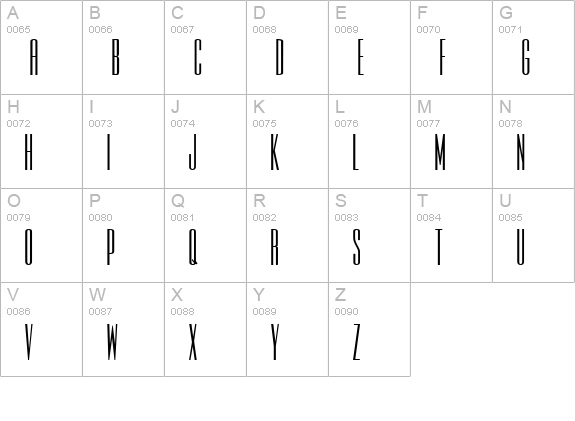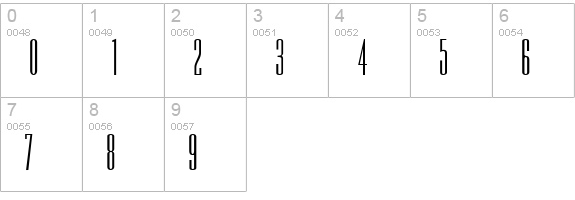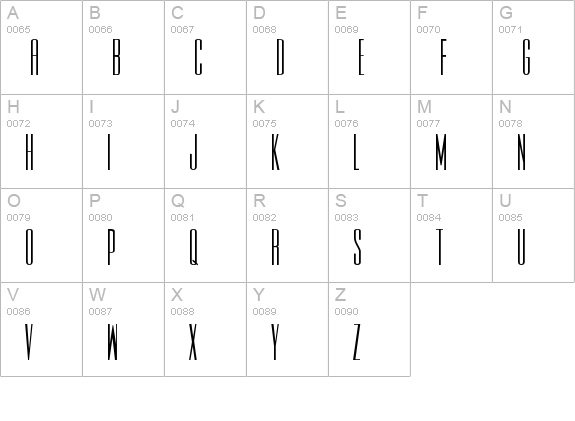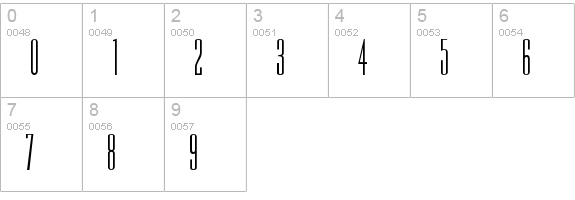
Slim Jim Bold Font Details
Slim Jim Bold is a strong, high-contrast variant in the Slim typeface family \xE2\x80\x94 well suited to headlines, attention-grabbing titles, and strong calls-to-action.
Introducing Slim Jim Bold, a font that exudes confidence and makes a bold statement. This typeface is perfect for those who want to add a touch of edginess and modernity to their designs. With its sleek and slender letterforms, Slim Jim Bold commands attention and demands to be noticed. This font is not only visually striking but also incredibly versatile. Whether you're designing a logo, poster, or website, Slim Jim Bold will effortlessly elevate your project to the next level. Its unique and distinctive characters give your text a sense of personality and originality, making it stand out from the crowd. One of the best things about Slim Jim Bold is that it is freely available to download at FontsMarket.com. This means that you can easily access this amazing font without breaking the bank. Whether you're a professional designer or a hobbyist, having access to high-quality fonts for free is always a great advantage. So, don't miss out on the opportunity to enhance your designs with the captivating allure of Slim Jim Bold. Download this font now at FontsMarket.com and unleash your creativity with this stunning typeface. With Slim Jim Bold, your words will never go unnoticed.